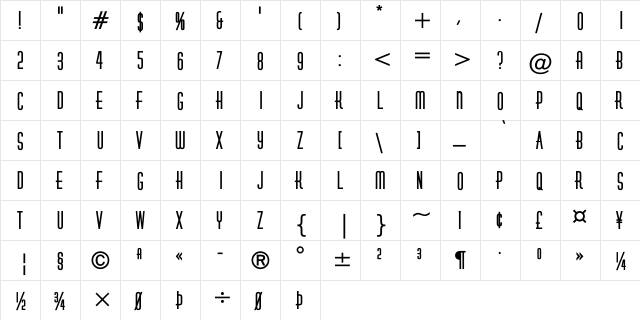
Huxley Titling Regular
| Foundry | BOUTON, |
| Designer | Gary David Bouton, after Walter Huxley 1935 |
Design Context for Huxley Titling Typeface
Huxley Titling offers clean, dependable letterforms without strong stylistic allegiance, making it a practical choice for designers who need flexibility.